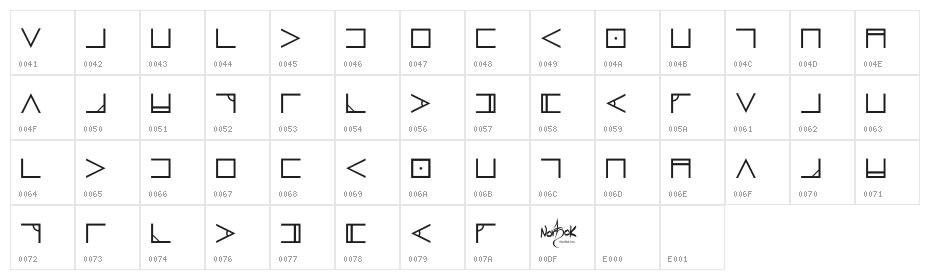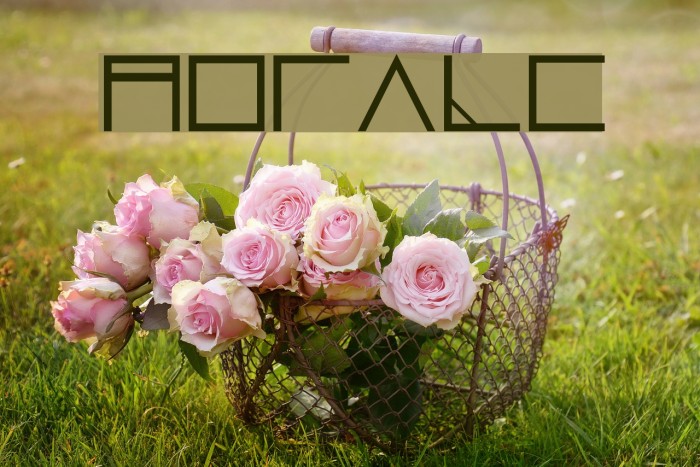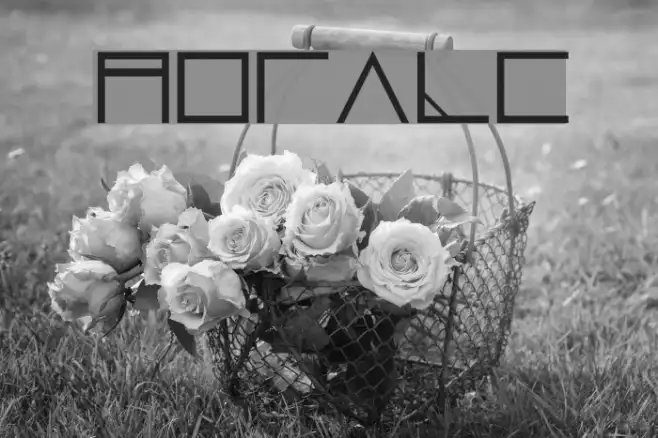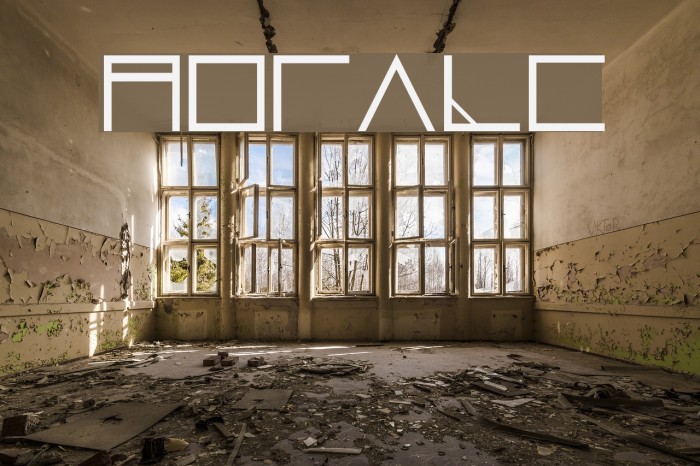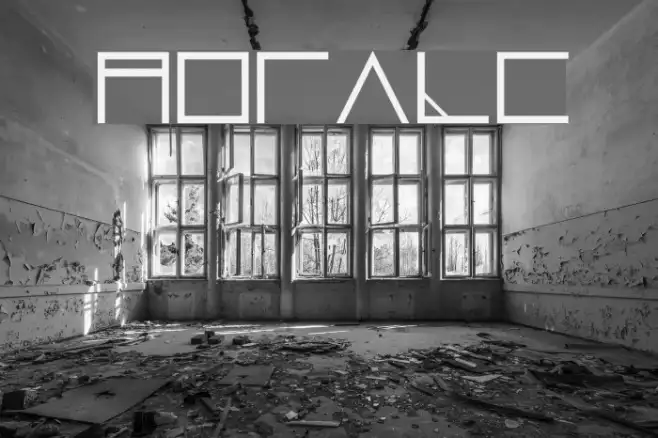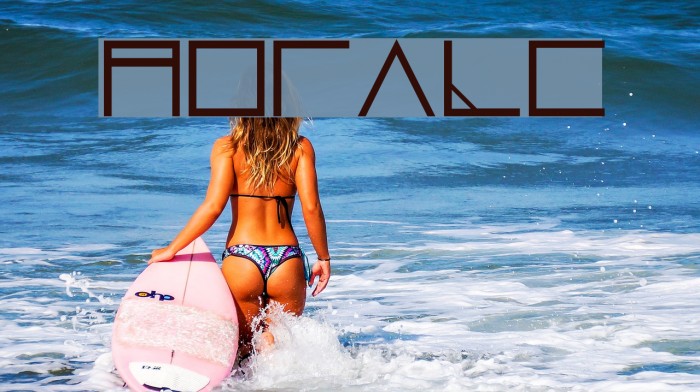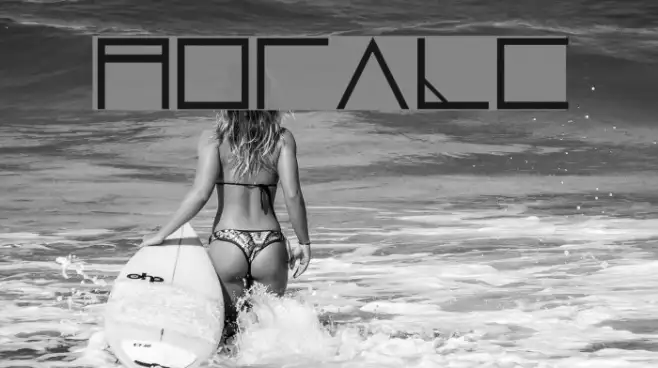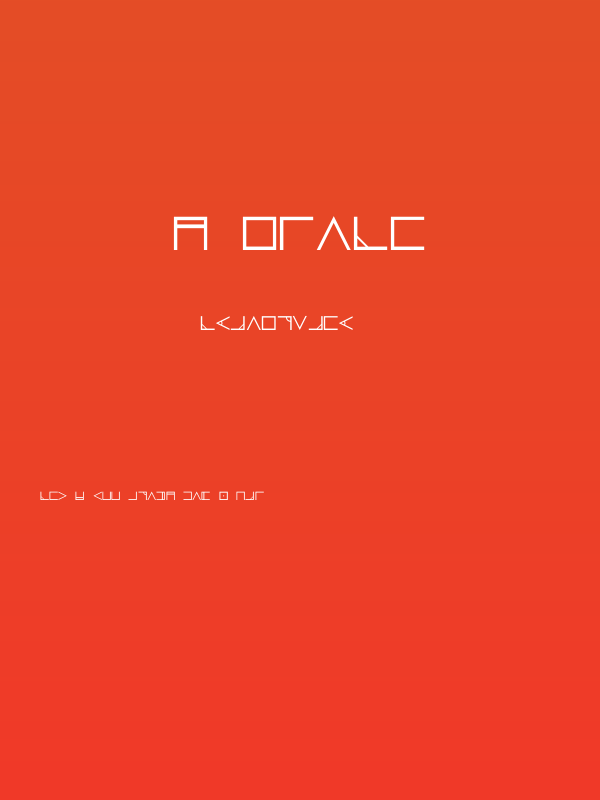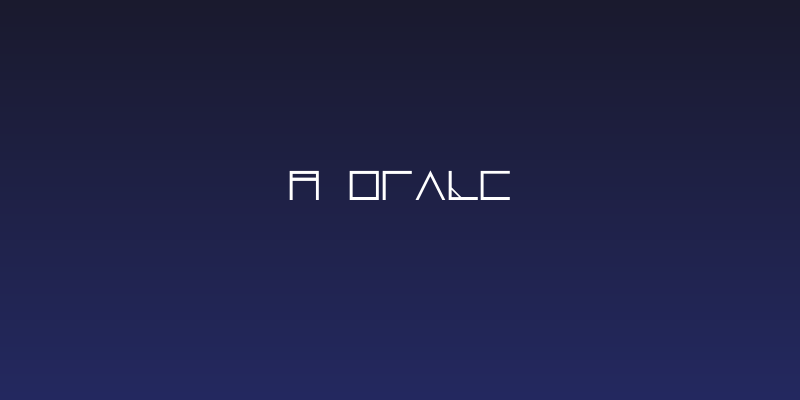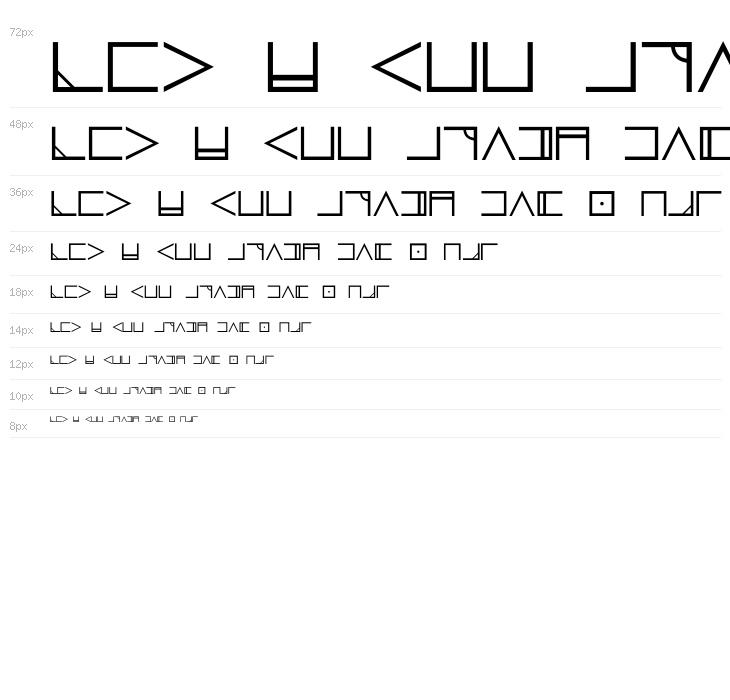
Nugsoth Font
This font features a highly geometric and abstract design, characterized by its angular and linear elements. Each character is constructed with straight lines and sharp angles, giving it a futuristic and digital appearance. The font lacks traditional curves, opting instead for a more mechanical and structured form. It presents a unique visual language that resembles symbols or codes, making it stand out for its distinctiveness. The uniformity in line thickness across all characters contributes to a cohesive and consistent look, while the spacing between characters is tight, enhancing its compact and efficient style.
| Use Case | Logos, Headlines, Digital Interfaces |
| Proposed Projects | Ideal for sci-fi themed projects, digital art, coding interfaces, or any design requiring a modern and unconventional typeface. |